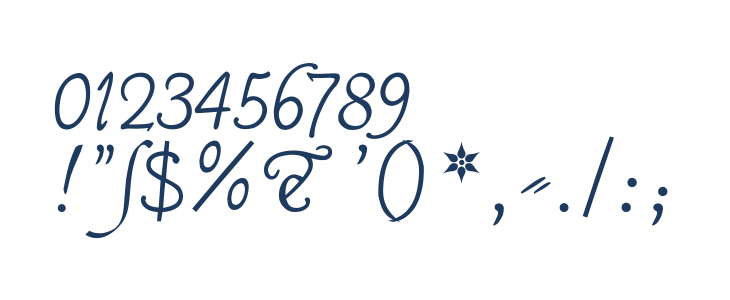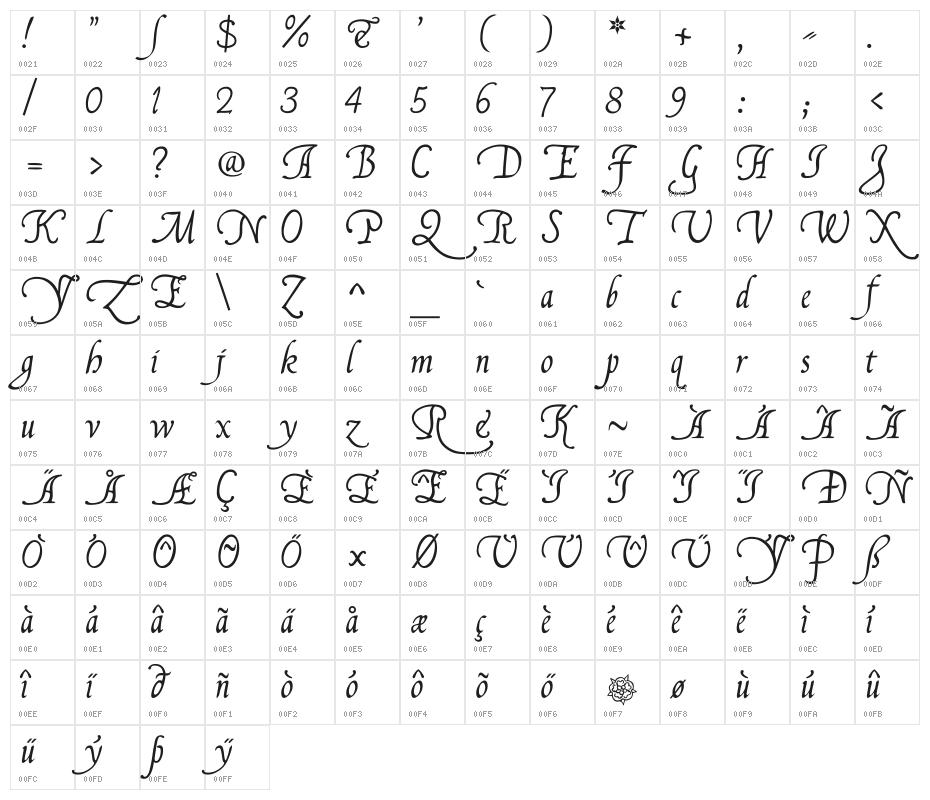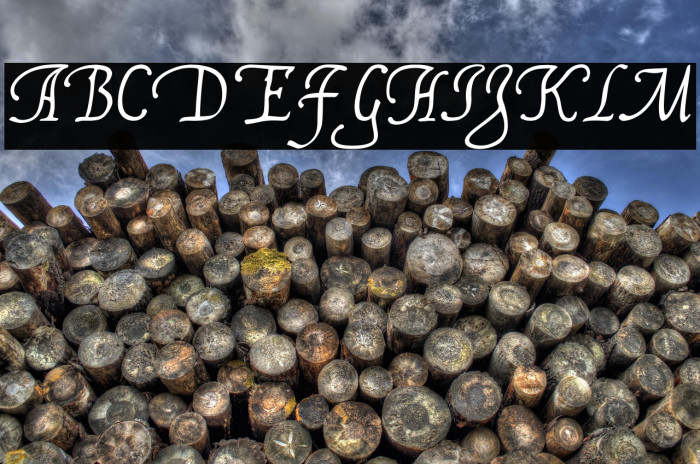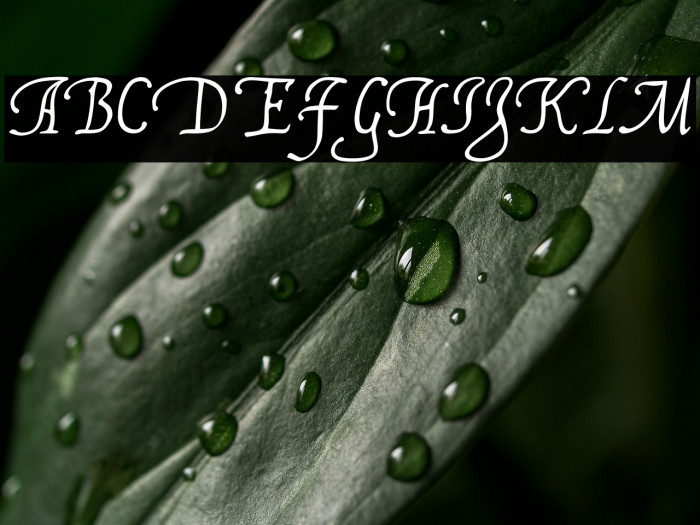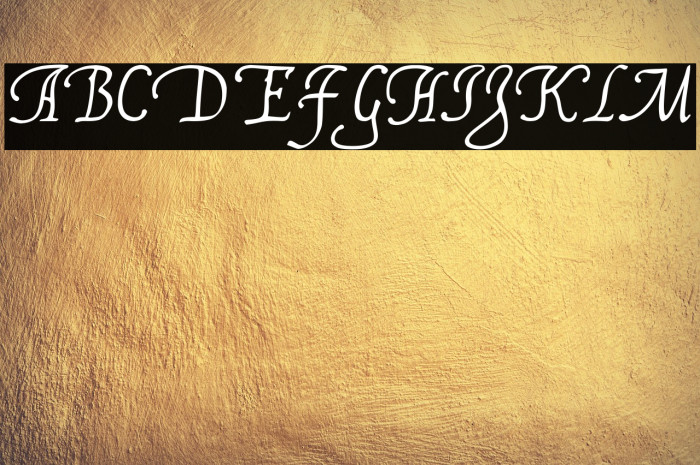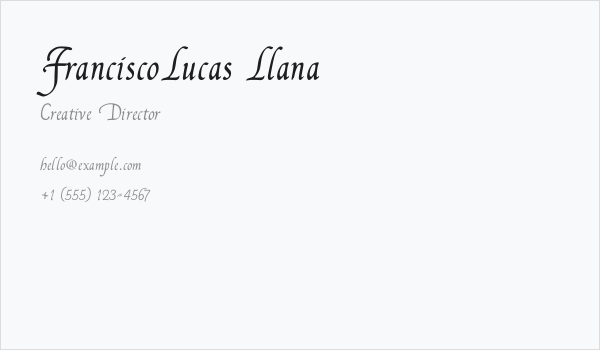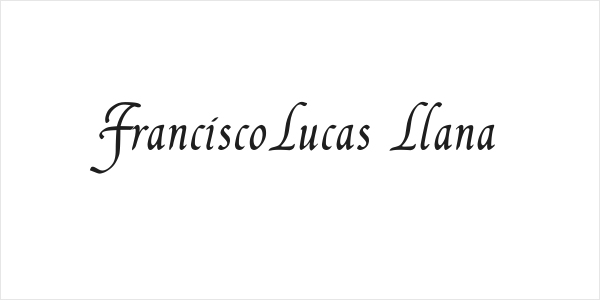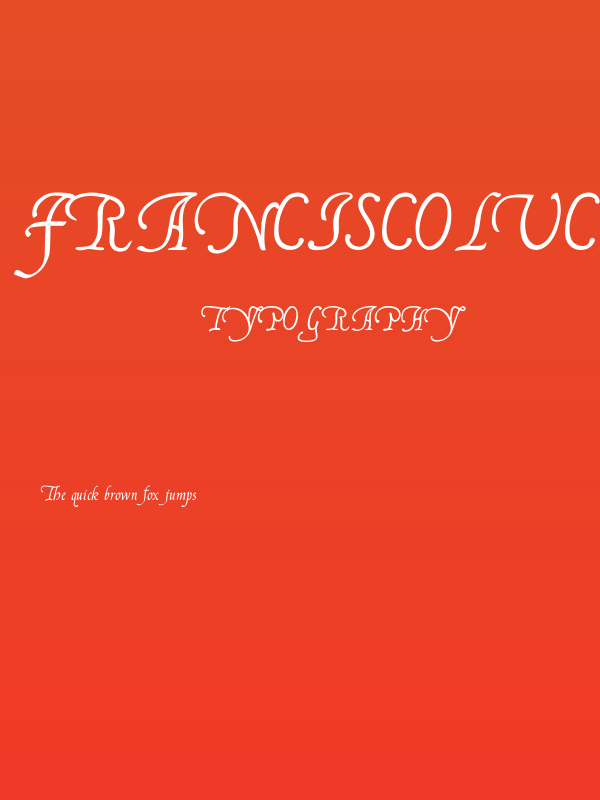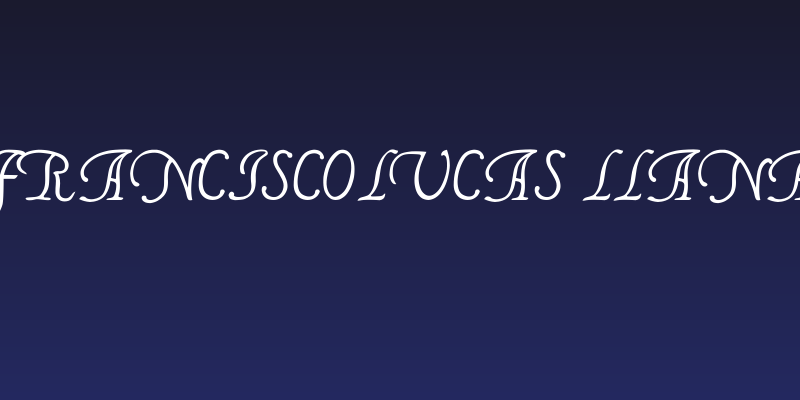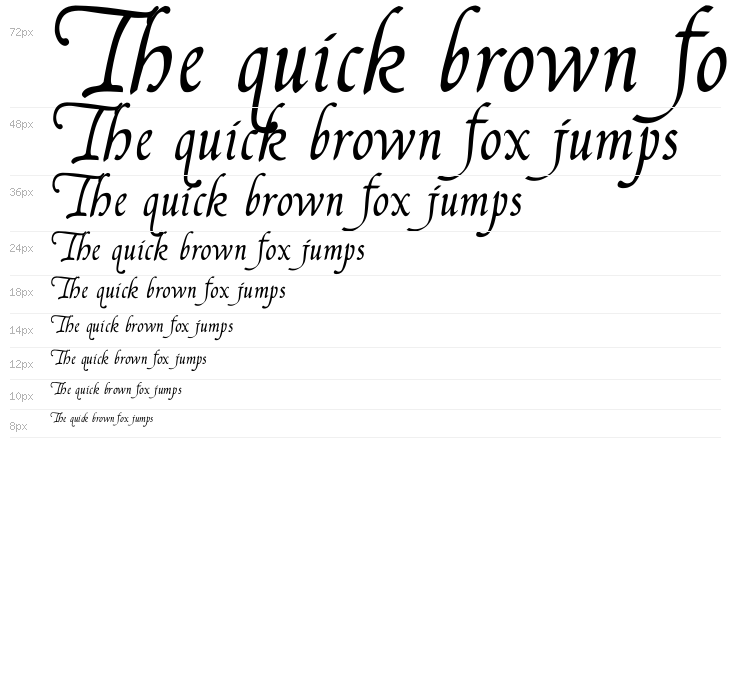
FranciscoLucas Llana Font
FranciscoLucas Llana Description
This font exudes a classic and elegant script style, characterized by its flowing and connected letterforms. The uppercase letters are ornate with subtle flourishes, while the lowercase letters maintain a consistent and smooth cursive appearance. The numerals are distinct and easily readable, complementing the overall aesthetic. Special characters are designed with the same attention to detail, enhancing the font's decorative appeal. The strokes vary in thickness, providing a medium contrast that adds to the font's sophistication. This script font is ideal for projects that require a touch of elegance and formality.
| Use Case | Headlines, Invitations, Branding |
| Proposed Projects | Ideal for wedding invitations, formal event programs, elegant branding, and decorative headings. |